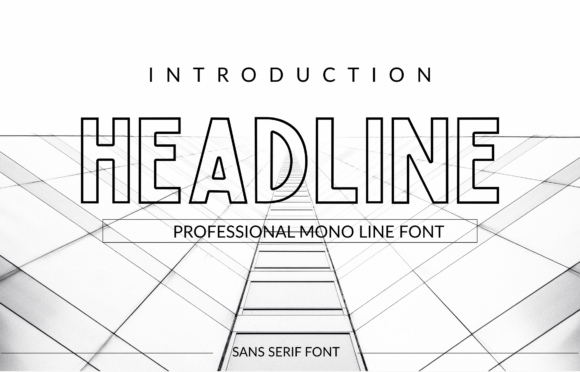
Step into the realm of visual enchantment with Headline Font, the captivating display font family that radiates an aura of individuality. This masterpiece, conjured by the creative minds at Goodrichees, is a symphony of bold strokes and elegant curves, meticulously crafted to leave an indelible mark on your designs.
With Headline Font, you embark on a journey of limitless creativity, transforming your ideas into striking visual statements. Its crisp outlines and impeccable construction make it a versatile chameleon, effortlessly adapting to a kaleidoscope of design projects, from t-shirts to sportswear, logos to advertisements, clothing and beyond.
Immerse yourself in the world of photography, where Headline Font shines as a beacon of brilliance. Its inherent charm lends an air of sophistication to your images, capturing the essence of every moment with a touch of timeless grace. Whether you're a budding photographer seeking to elevate your portfolio or a seasoned professional aiming for perfection, Headline Font is your steadfast companion, guiding you towards visual excellence.
Headline Font is more than just a digital creation; it's an extension of your artistic expression. Its unique characteristics evoke emotions, sparking connections with your audience and leaving them spellbound. Prepare to witness the transformation as ordinary words metamorphose into captivating headlines, urging your readers to delve deeper into your creative universe.
Unleash the power of Headline Font and embark on a transformative design journey. Its versatility empowers you to conquer any creative challenge, while its undeniable beauty captivates and inspires. Embrace the boundless possibilities and redefine the boundaries of visual communication.